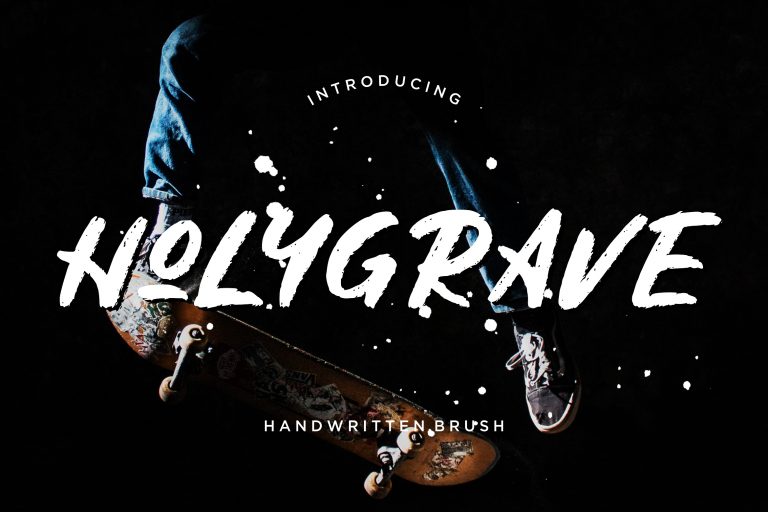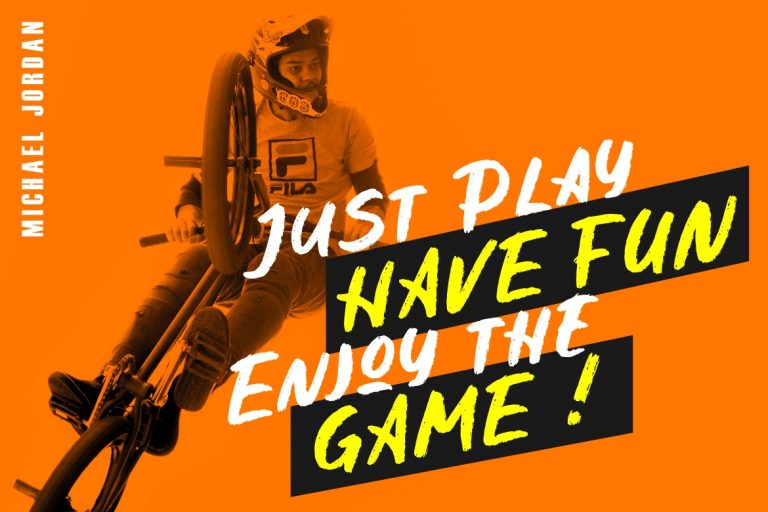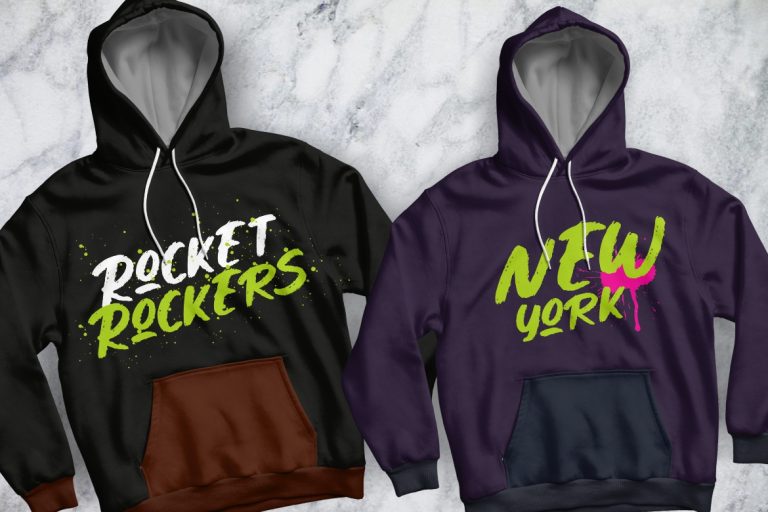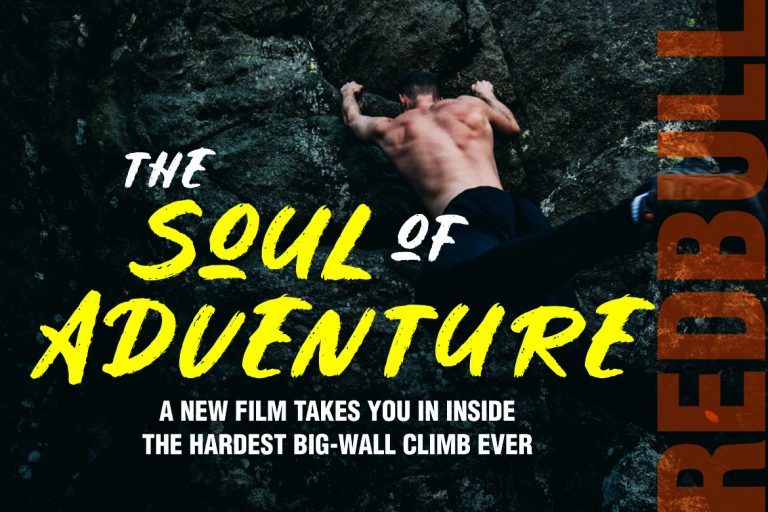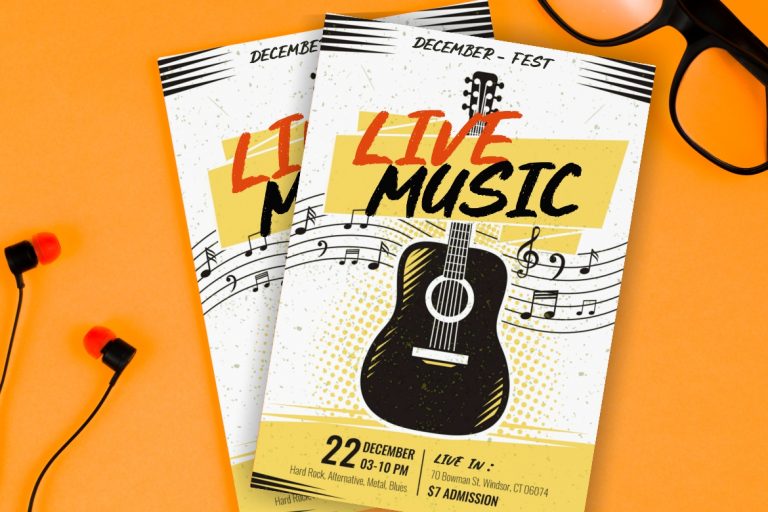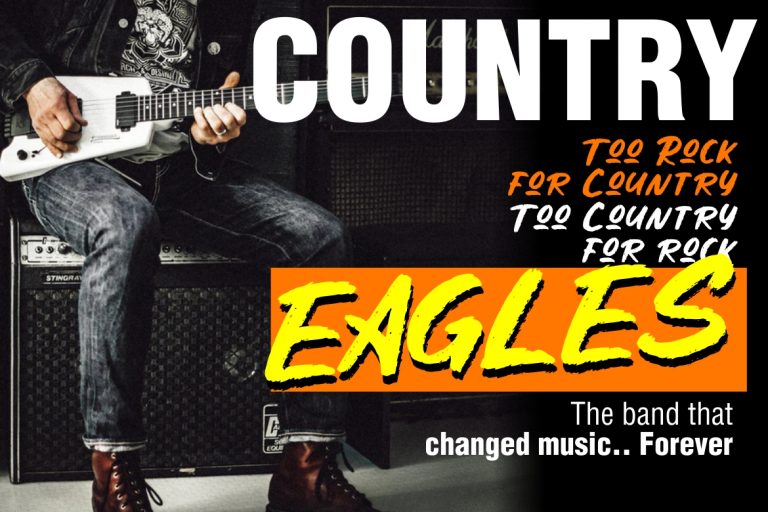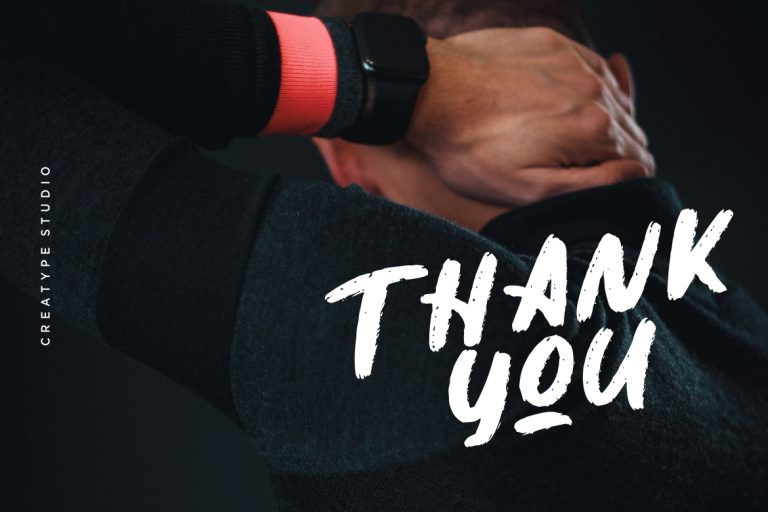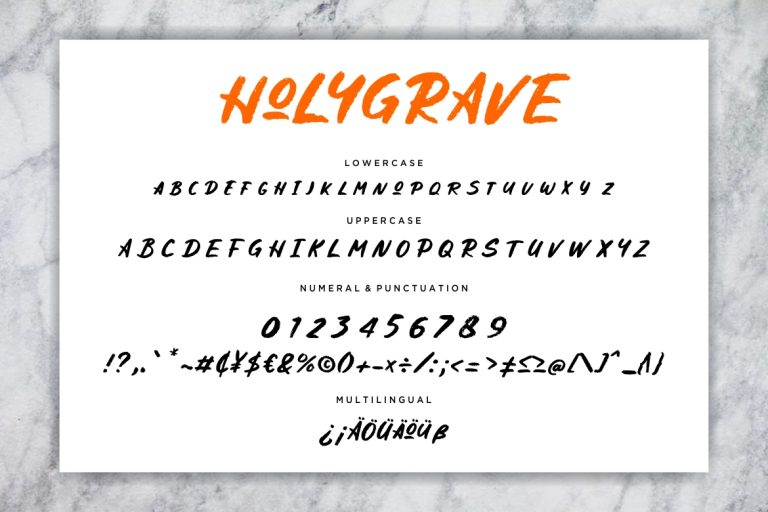
Holygrave is handwritten brush script font with natural movement scratch.
Holygrave is perfect for branding projects, logo, wedding designs, social media posts, advertisements, product packaging, product designs, label, photography, watermark, invitation, stationery and any projects that need handwriting taste.
• Fonts include multilingual support for; ä ö ü Ä Ö Ü ß ¿ ¡
Holygrave Handwritten Brush